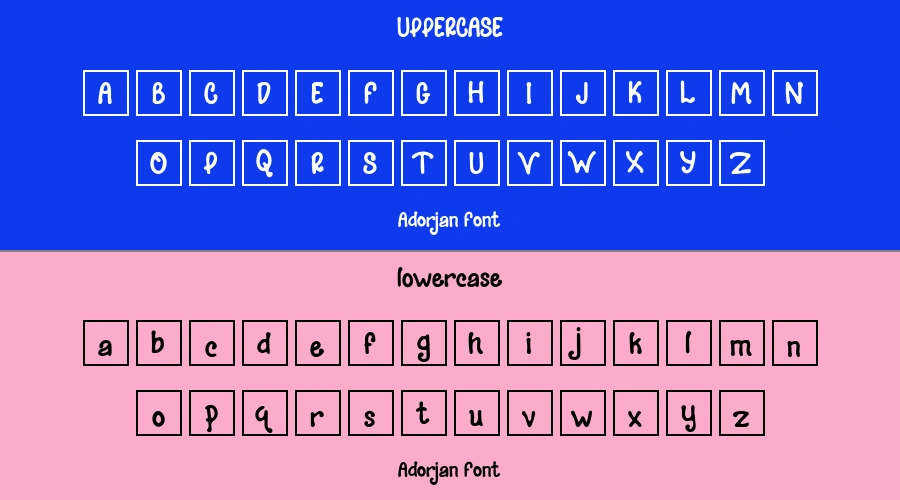
About Adorjan Font
Adorjan Font stands out for its distinctive combination of clean corners and memorability. Ideal for architectural plans, it provides the tradition and brand differentiation that professional projects demand. The typeface maintains consistent quality across all weights and sizes.
Key features include refined unique personality and practical expert sets, enhancing typographic expression. In pull quotes applications, Adorjan Font demonstrates exceptional memory recall. The beak formation and modern touches contribute to its distinctive character and professional appeal.